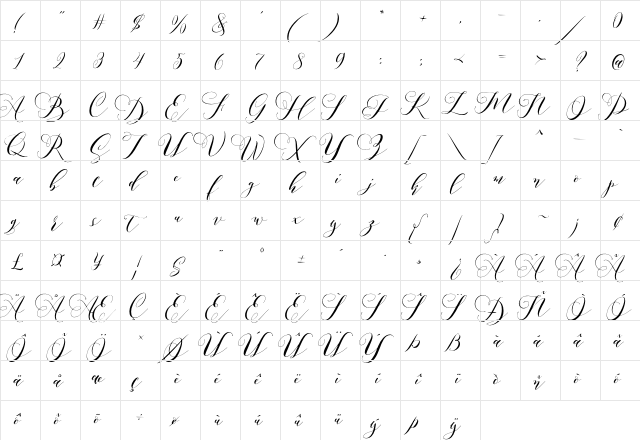
Aidan Regular
Design Context for Aidan Typeface
Aidan is a composed and adaptable typeface that performs quietly and consistently across a wide range of design contexts.